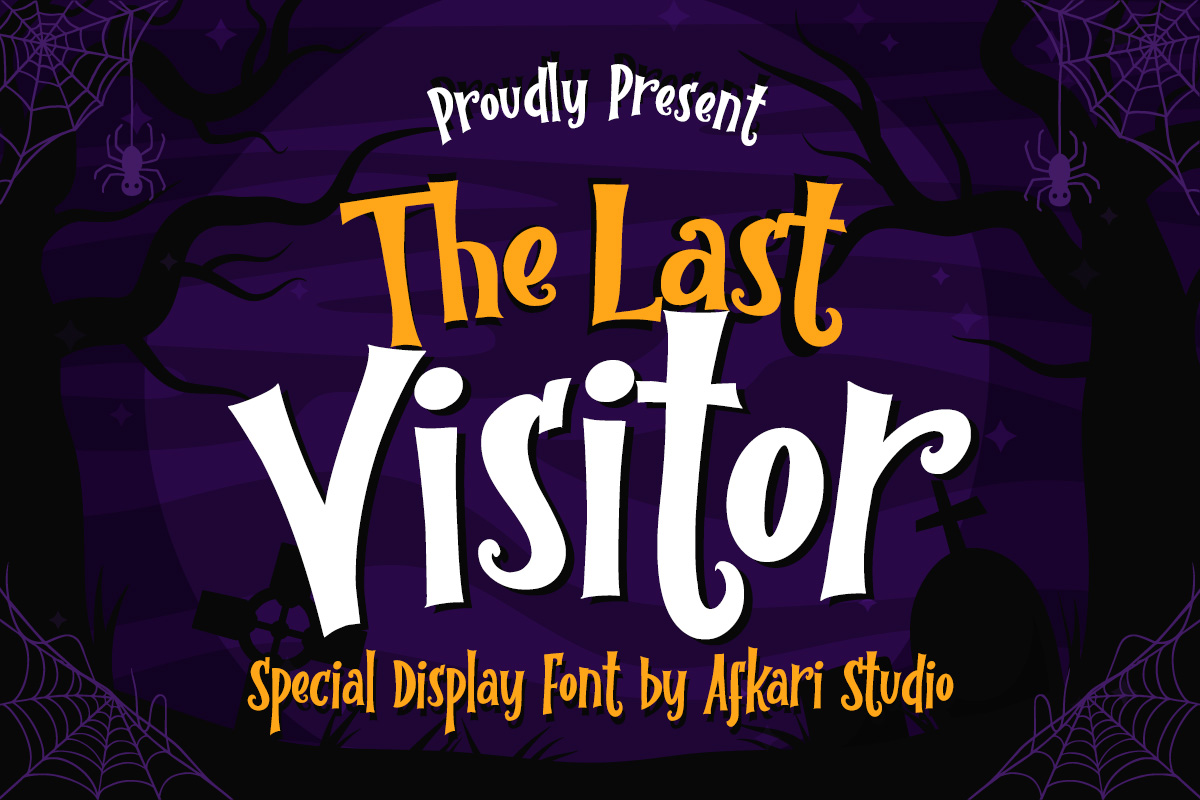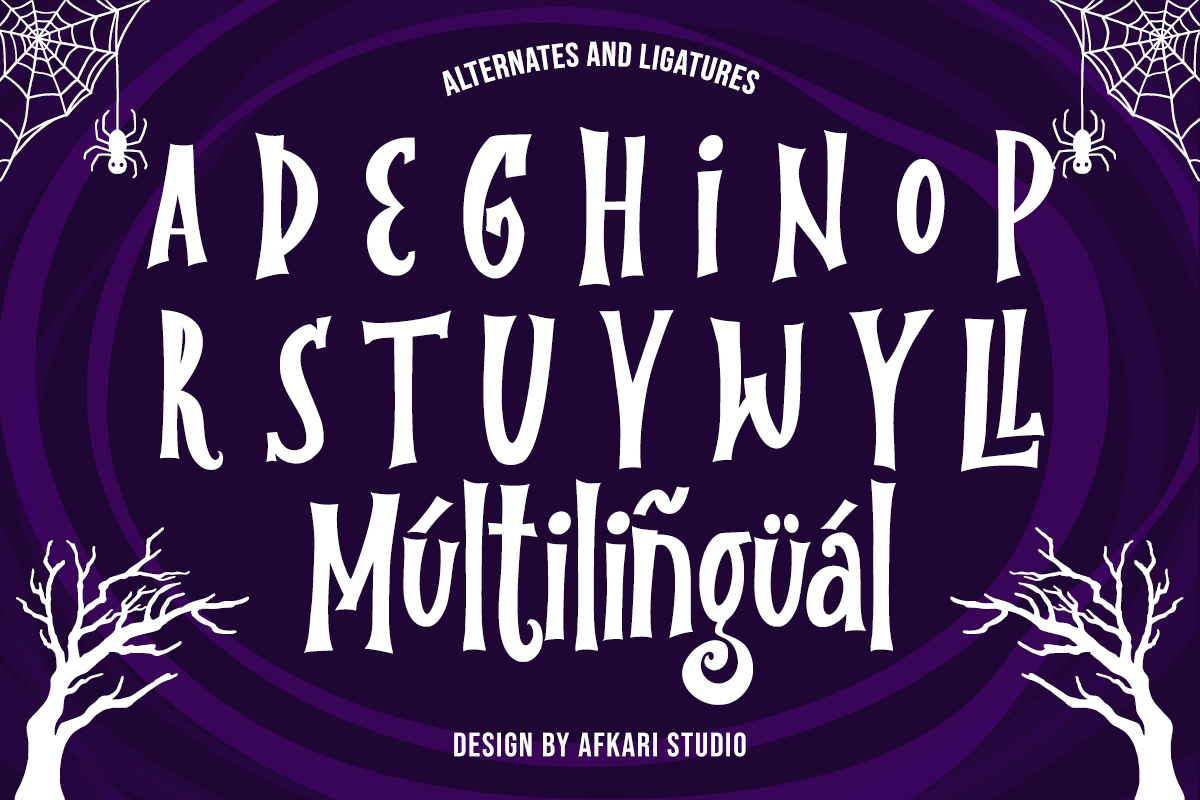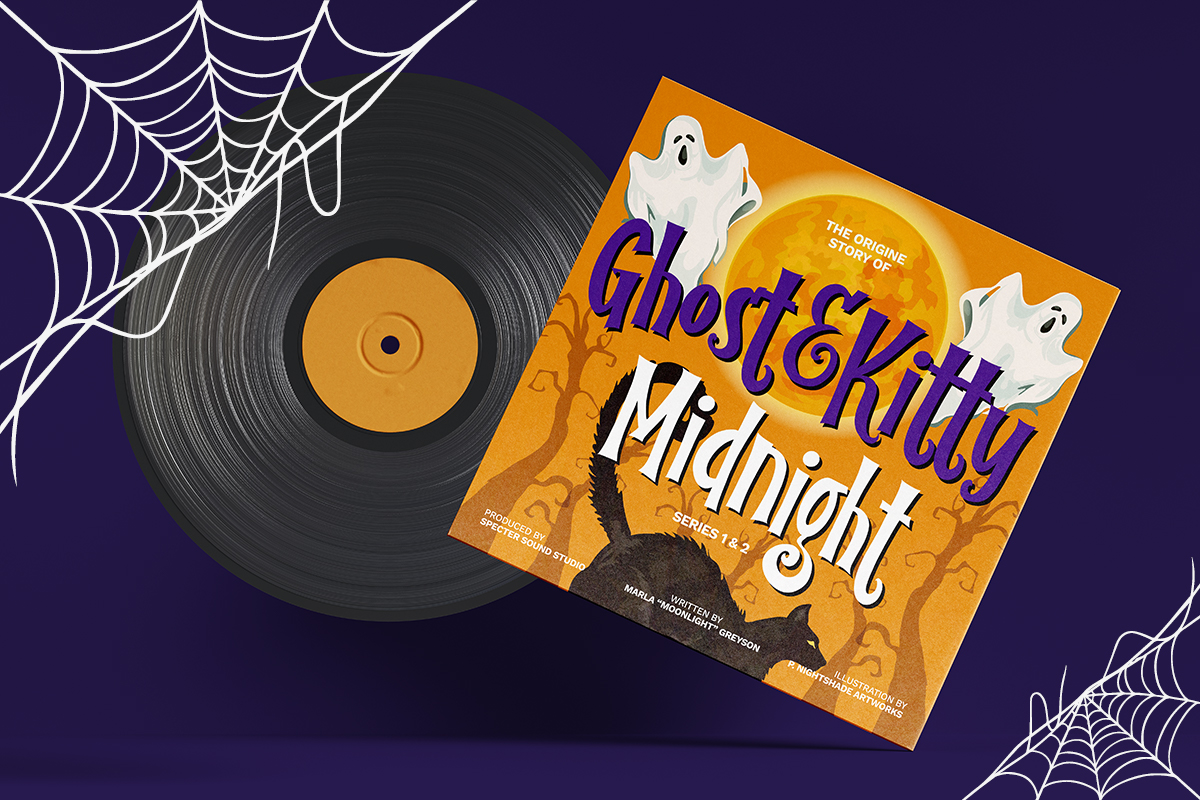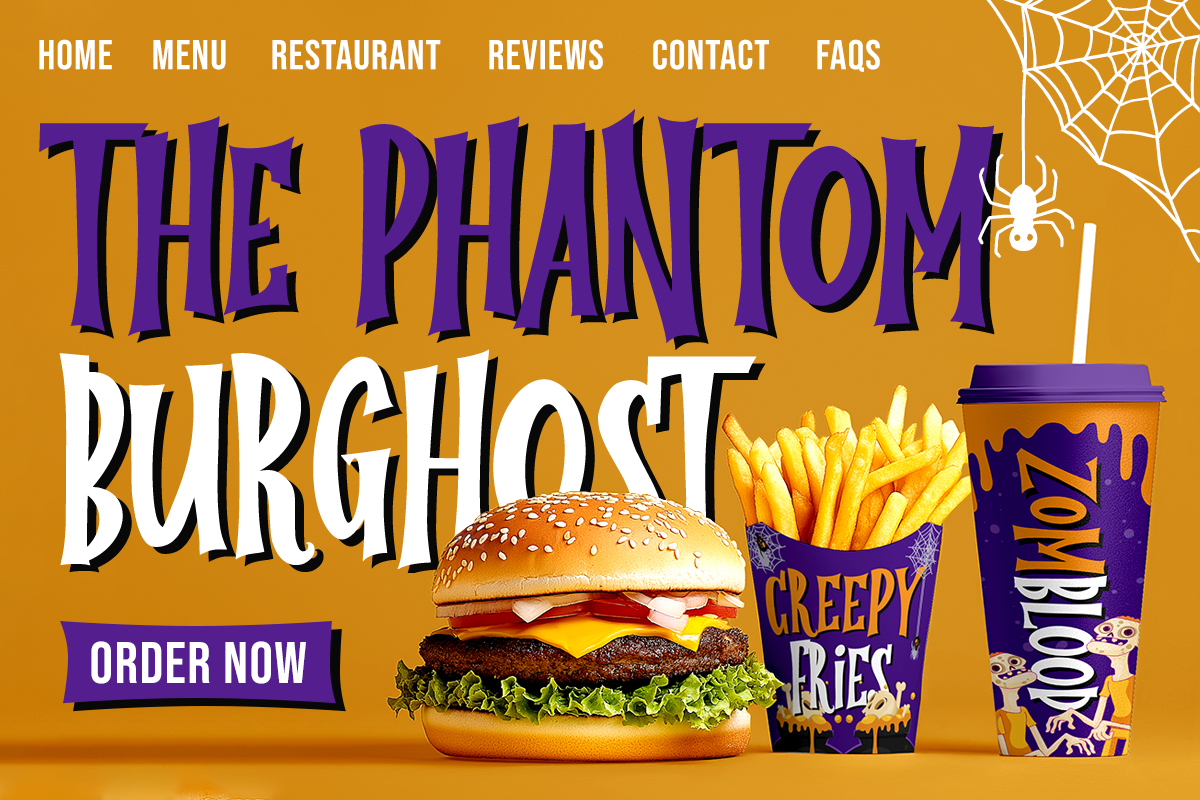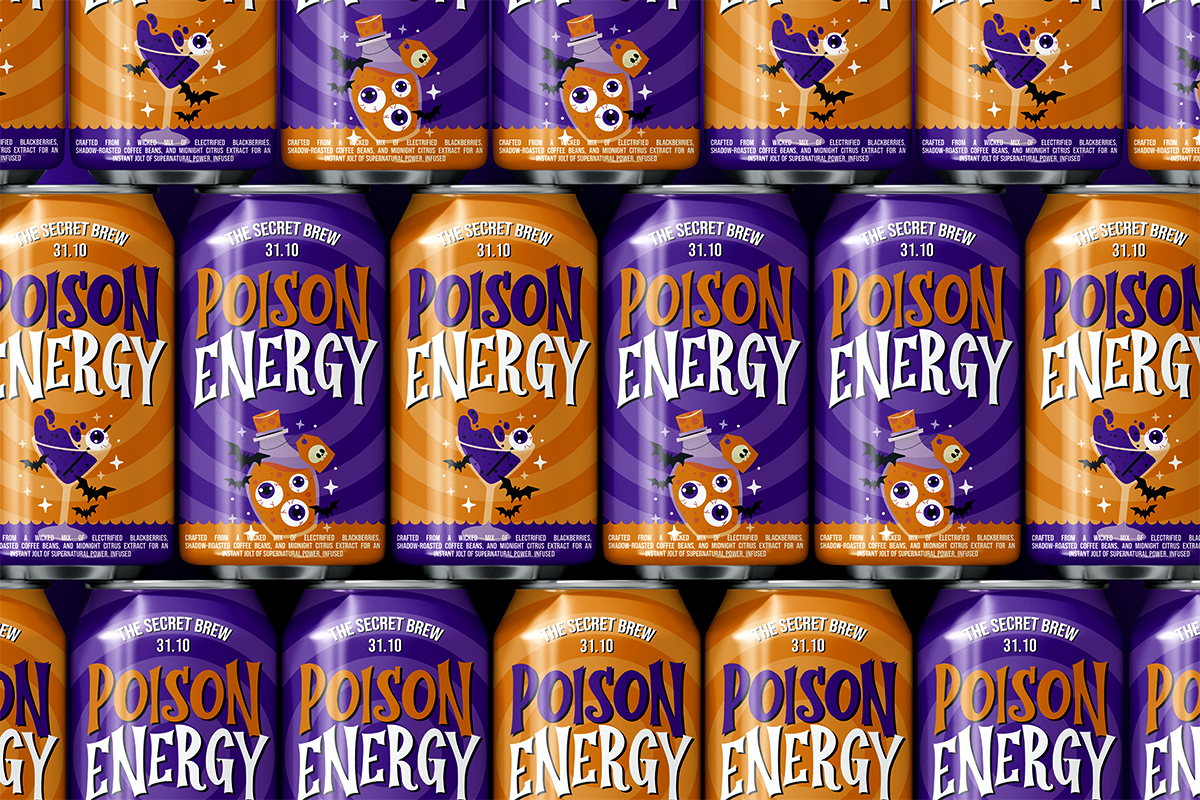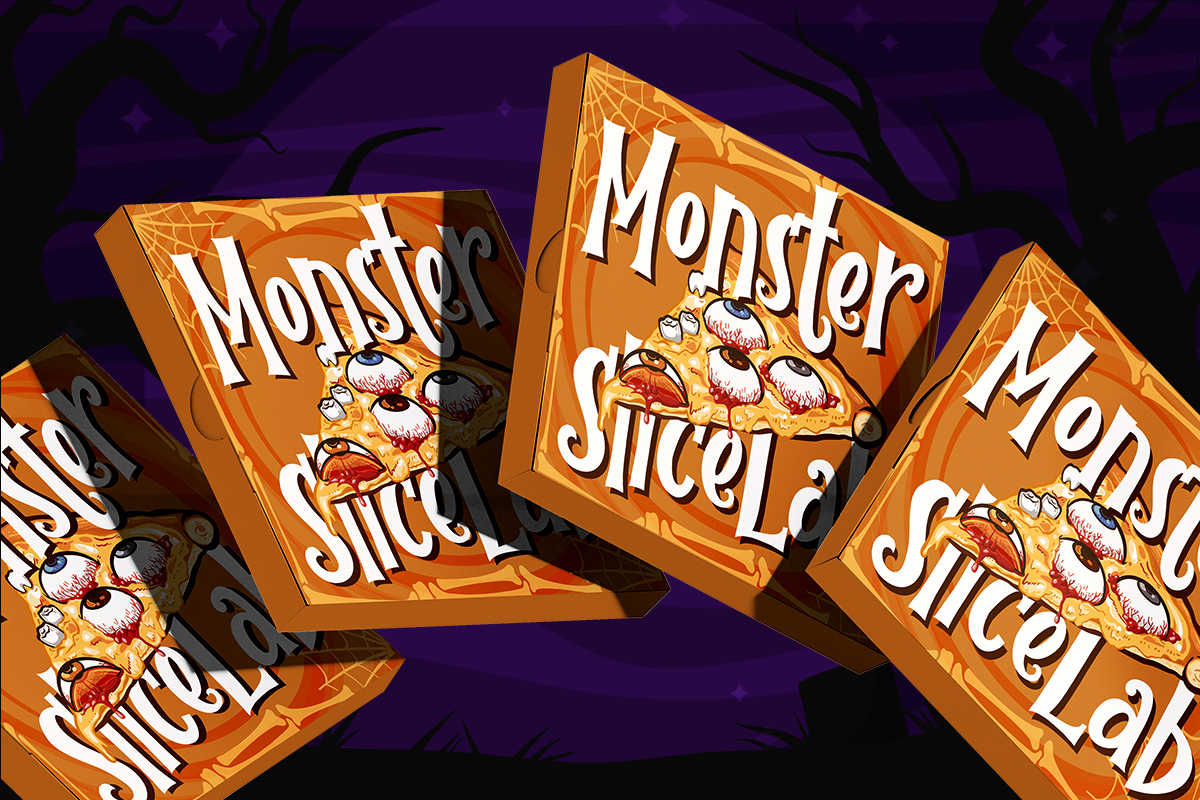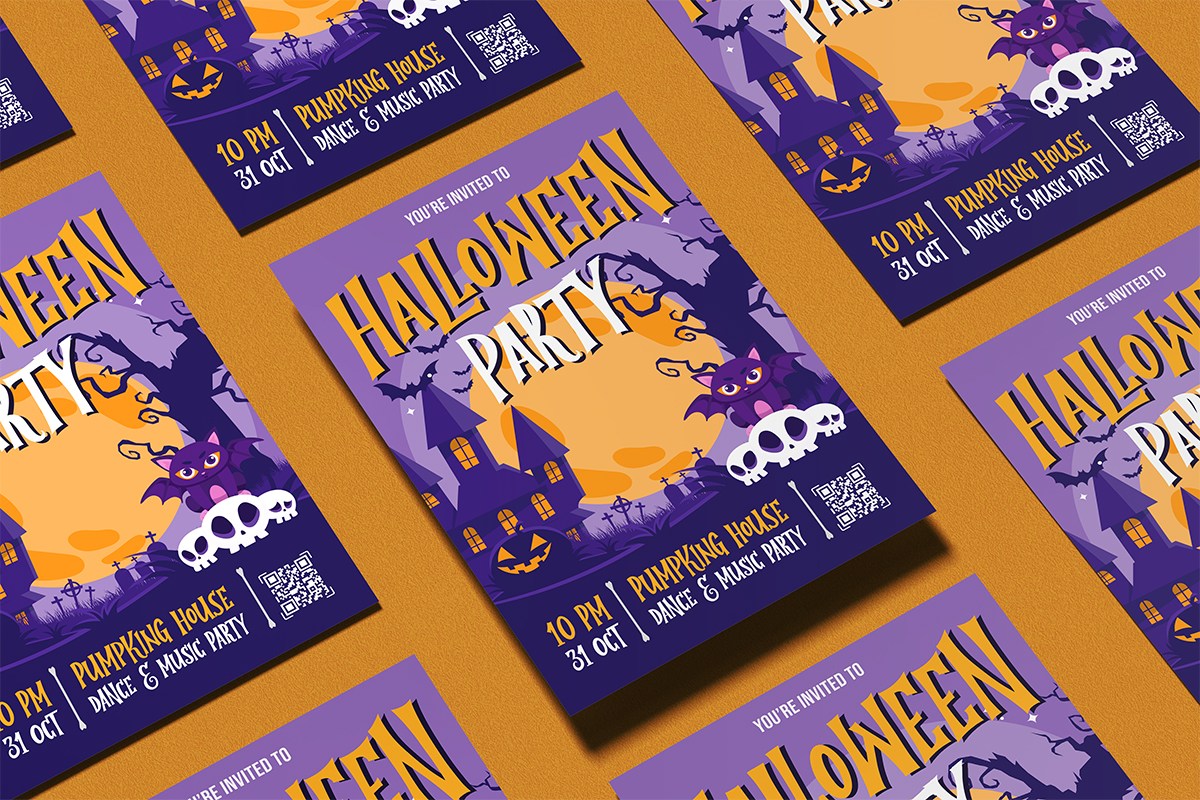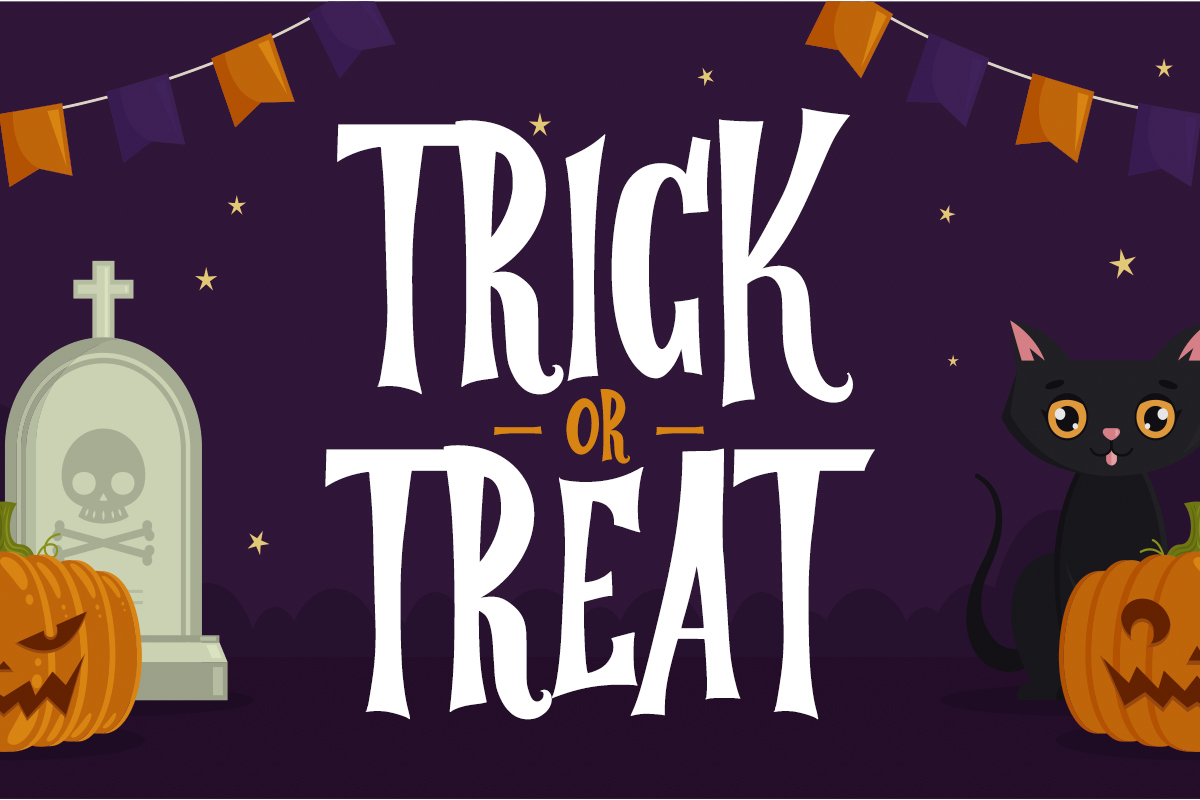
The Last Visitor – Special Display Serif Font
The Last Visitor is a special display serif font crafted with dramatic curves, sharp details, and an eerie touch that instantly grabs attention. Designed to stand out in bold titles and thematic graphics, this font blends classic serif elegance with a mysterious, cinematic atmosphere—perfect for projects that need a strong, unforgettable visual identity.
With its striking letterforms and unique serif accents, The Last Visitor brings sophistication and suspense into one cohesive style. Whether you’re creating horror-themed content, editorial headlines, branding, posters, or book covers, this font adds a powerful presence that feels both refined and haunting.
– Uppercase, Lowercase, Number, and Punctuation
– Special Alternates and ligatures
What Makes The Last Visitor Special?
– Unique Display Serif Style – Elegant yet intense, perfect for dramatic typography.
– Sharp, expressive details – Adds mood, mystery, and visual tension.
– High-impact letterforms – Designed for standout headlines and large titles.
– Cinematic feel – Ideal for trailers, movie posters, and storytelling visuals.
– Versatile tone – Works for dark, gothic, vintage, fantasy, or modern editorial themes.
Perfect For
– Horror & thriller posters
– Book covers & chapter titles
– Branding with a bold mysterious vibe
– Gothic, fantasy, or occult-themed projects
– Magazine & editorial layouts
– Social media promotions
– Event flyers, festivals, Halloween graphics
With The Last Visitor, every word becomes a statement—bold, atmospheric, and beautifully crafted. This serif display font is the perfect choice for designers who want typography that feels premium, expressive, and full of character.